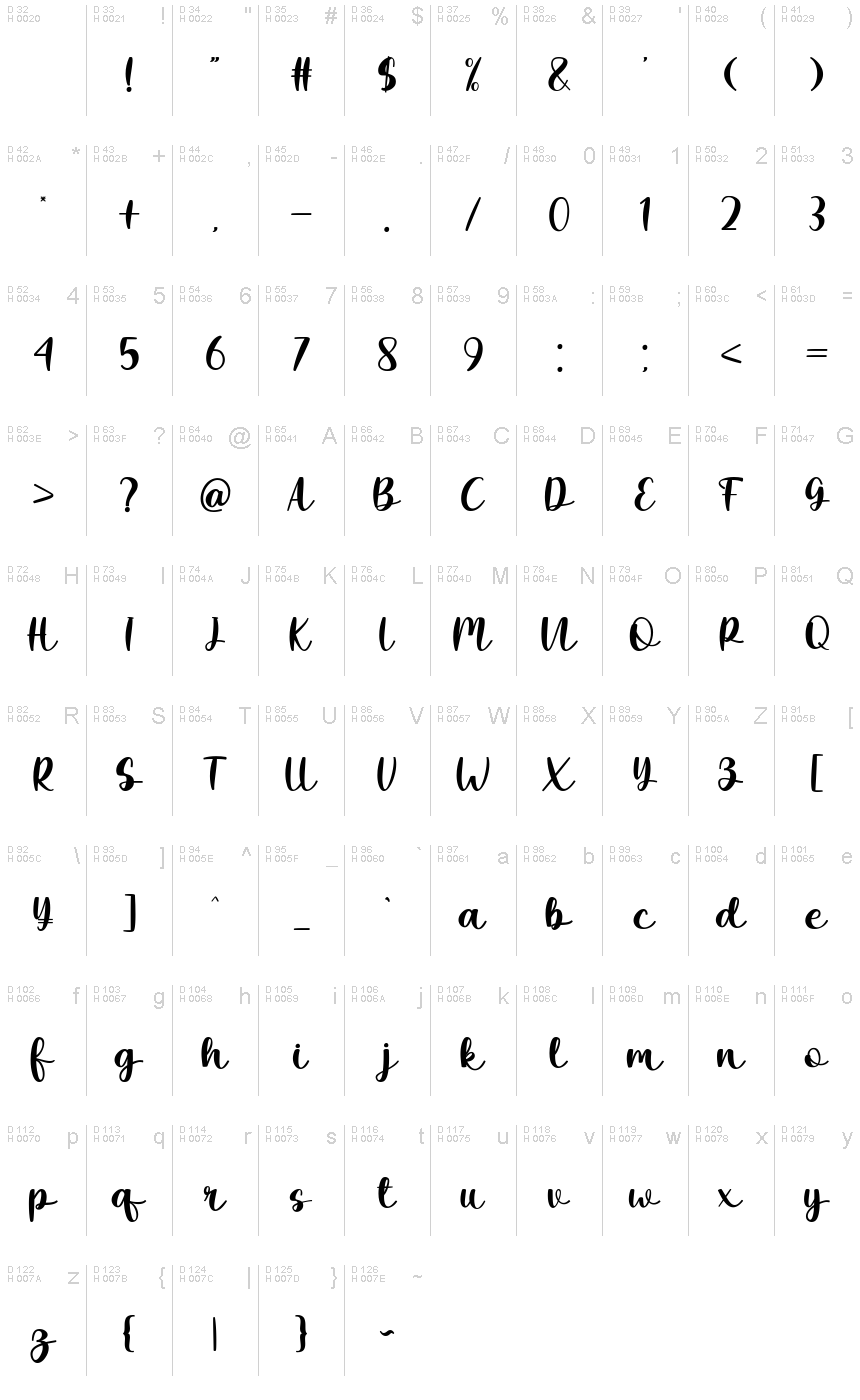
Simple Daily
Simple Daily is a smooth, brush-style font that exudes a sense of effortless elegance. Crafted by Rvandtype, this typeface features flowing, organic strokes that lend a warm, handwritten feel to any design. The clean, consistent letterforms create a polished, yet approachable aesthetic, making "Simple Daily" a versatile choice for branding, editorial layouts, and personal projects alike.
The font's uncluttered, calligraphic appearance allows it to seamlessly integrate into a variety of design styles, from modern minimalism to rustic charm. Its seamless blend of legibility and aesthetic appeal makes Simple Daily an excellent selection for headlines, subheadings, and even body copy, ensuring a cohesive and visually striking final product.